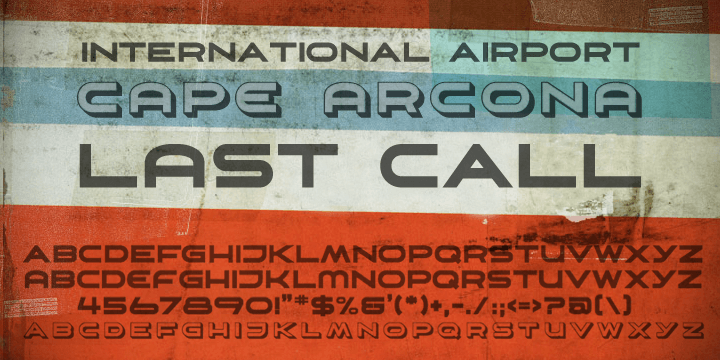
CA Aircona is a display sans font family. This typeface has three styles and was published by Cape Arcona Type Foundry.
The aim was to make a font that looks like the ones on airplanes. And Cape Arcona needed an Airline anyway. So here it is: “Aircona”. For more options in typesetting, some upper and lower cases differ.
The 3D version simply fitted so well to this font… For the best effect, write the desired word with ‘fill’ , duplicate it and change it’s style to ‘shadow’.